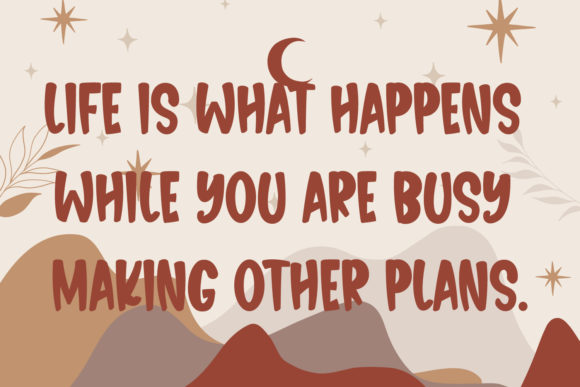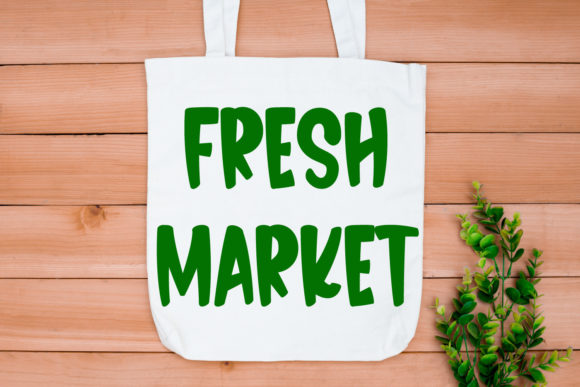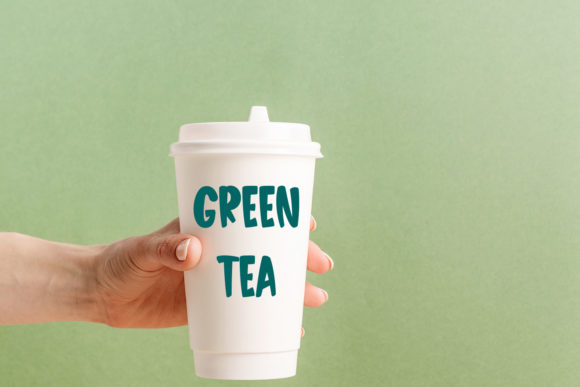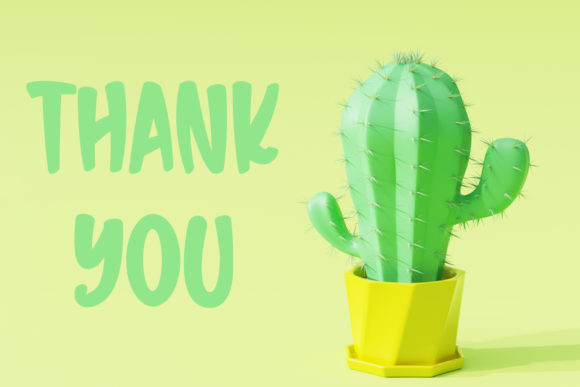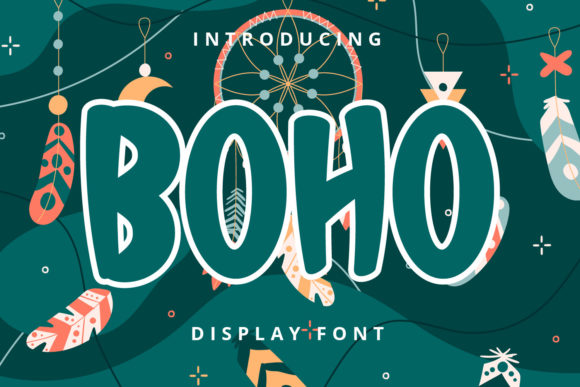
The Boho Font: A Designer’s New Best Friend
I’ll never forget the time I was working on a fashion branding project, and my client asked me to create a bold, eye-catching logo. I had a clear vision in mind, but I just couldn’t find the right font to bring it to life. That was until I stumbled upon the Boho font. With its smooth curves and thick lettering, it was love at first sight! In this article, I’ll share my experience with the Boho font, its features, and how to make the most of it in your designs.
• ✨ Smooth curves and thick lettering make it perfect for fashion branding and editorial designs
• ✅ Easy to read, even in large and small sizes
• 💃 Highly versatile and can be used for a wide range of creative projects
• 🎉 The Boho font comes with a range of OpenType features, including stylistic alternates and glyphs, which allow for even more customization
While the Boho font is an excellent choice for many projects, there are a few things to keep in mind:
• 🤔 The font can be a bit heavy-handed, so it’s best used in moderation
• ⚠️ Some of the more intricate details may get lost at very small sizes
The Story Behind Boho Font
The Boho font was designed with the creative, free-spirited individual in mind. Its creator, a talented type designer, wanted to craft a font that would capture the essence of bohemian style – think flowing curves, eclectic patterns, and a dash of playfulness. The result is a font that’s both stylish and approachable, perfect for designers who want to add a touch of personality to their work.
Q: What is the Boho font best used for?
A: The Boho font is perfect for fashion branding, editorial designs, and any project that requires a bold, eye-catching font.